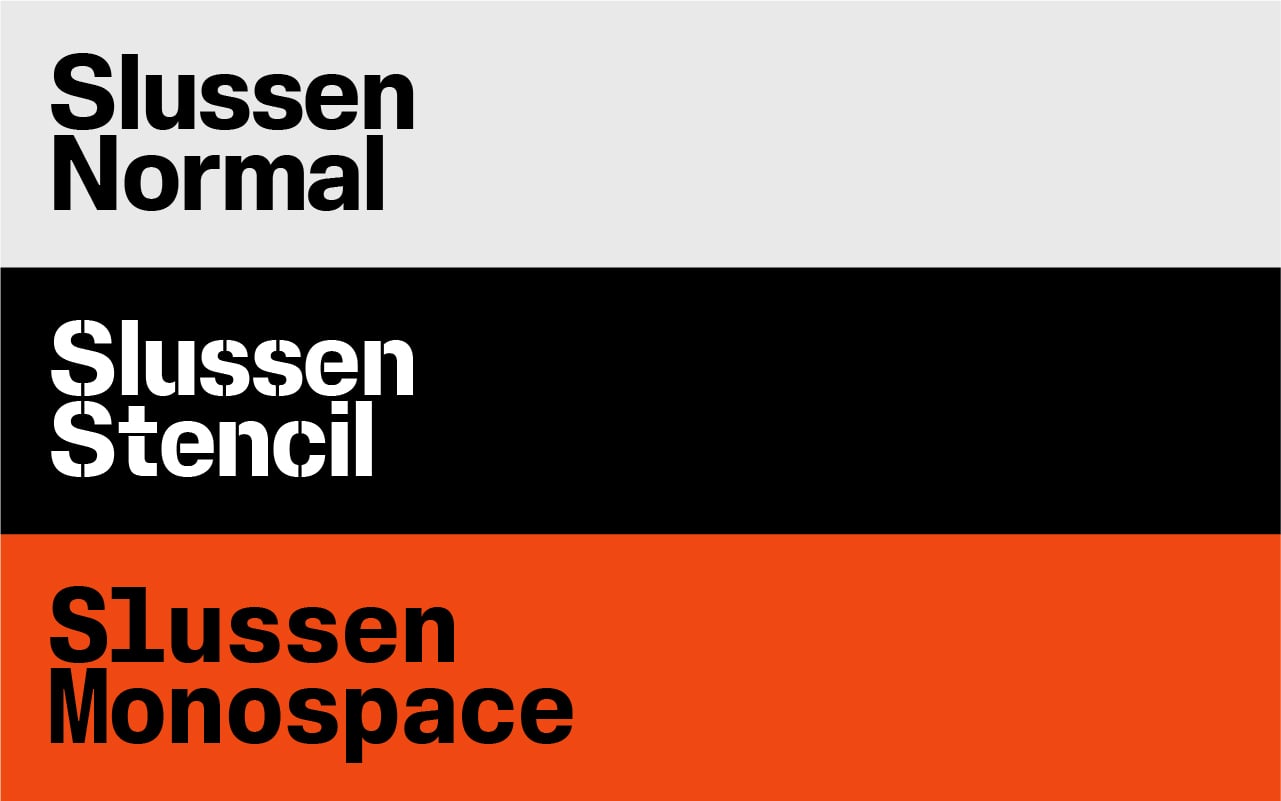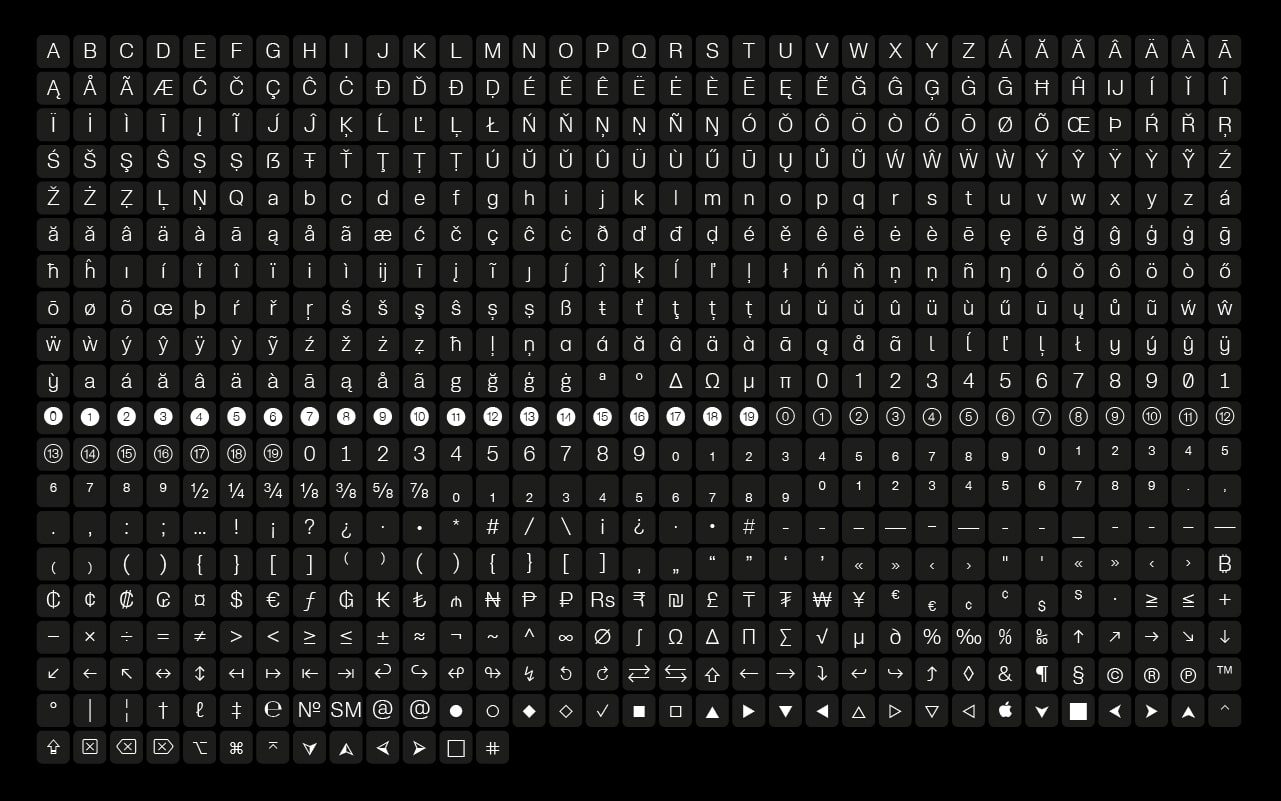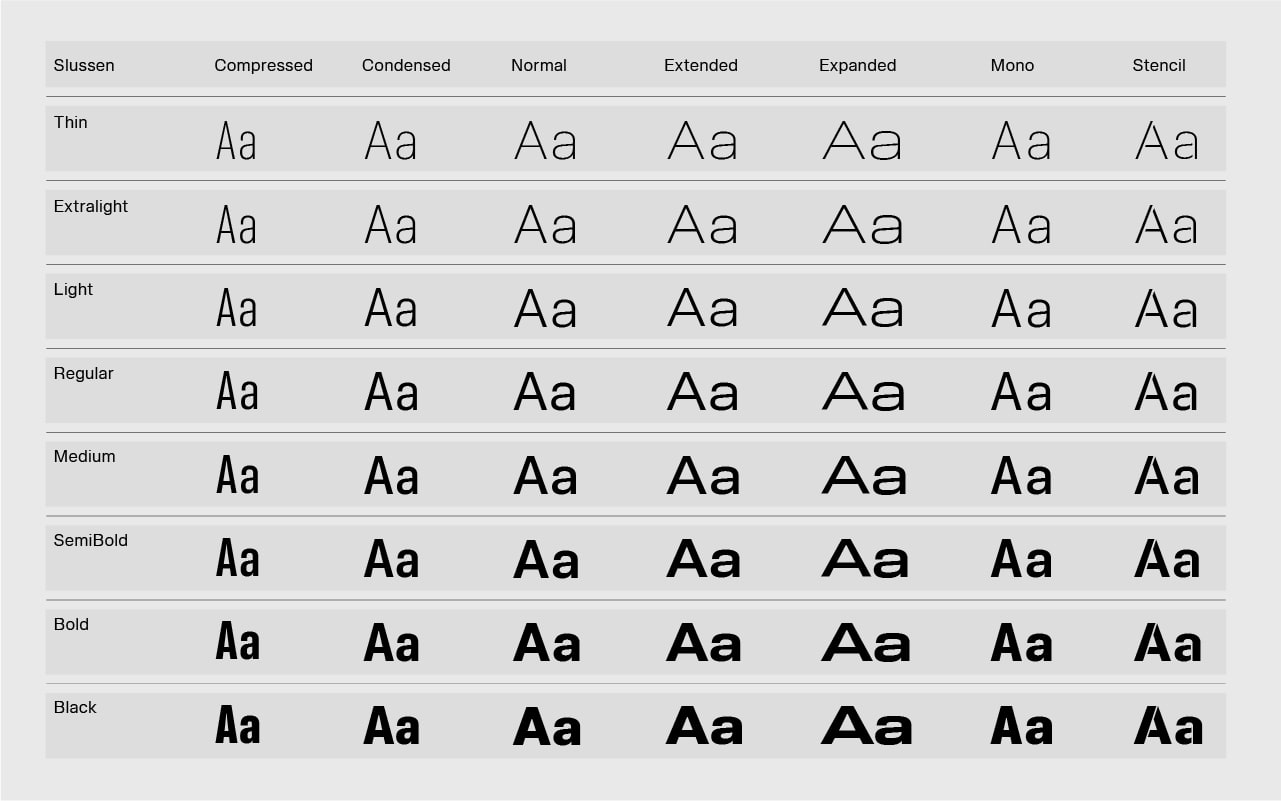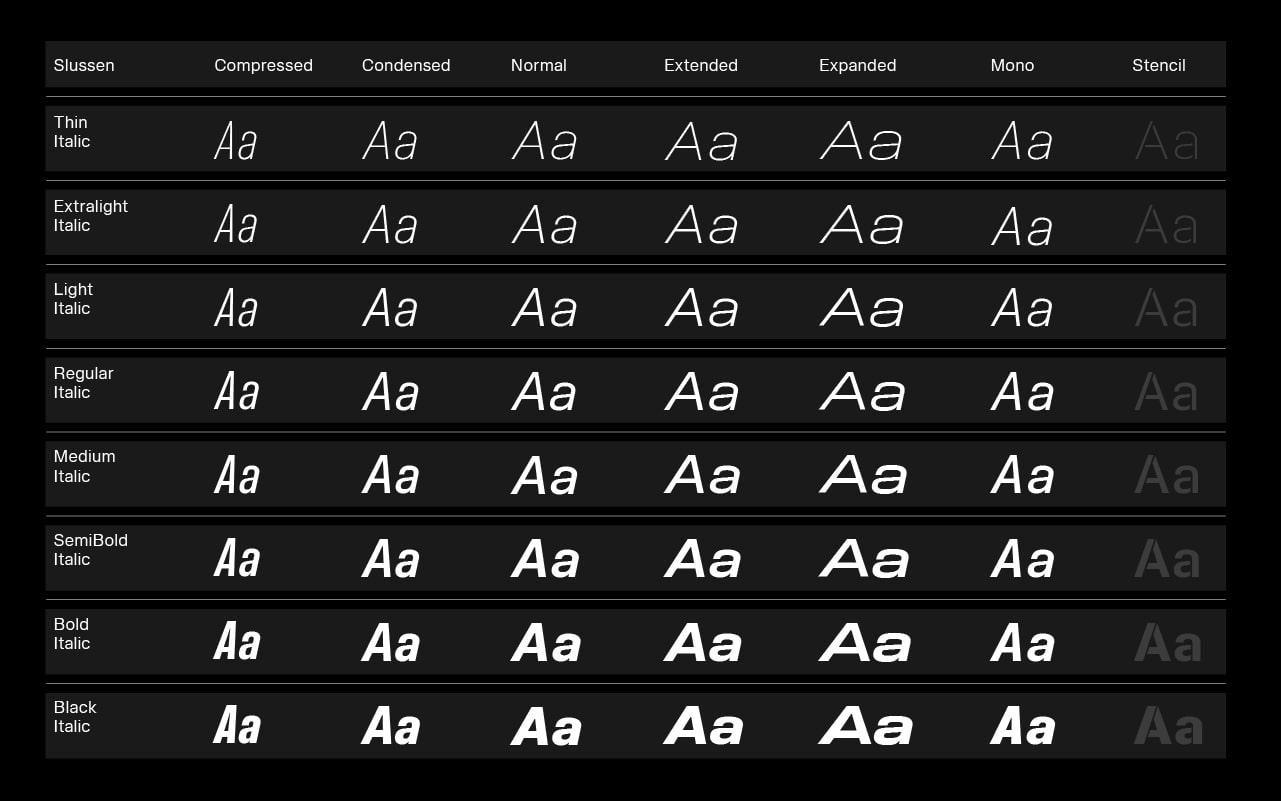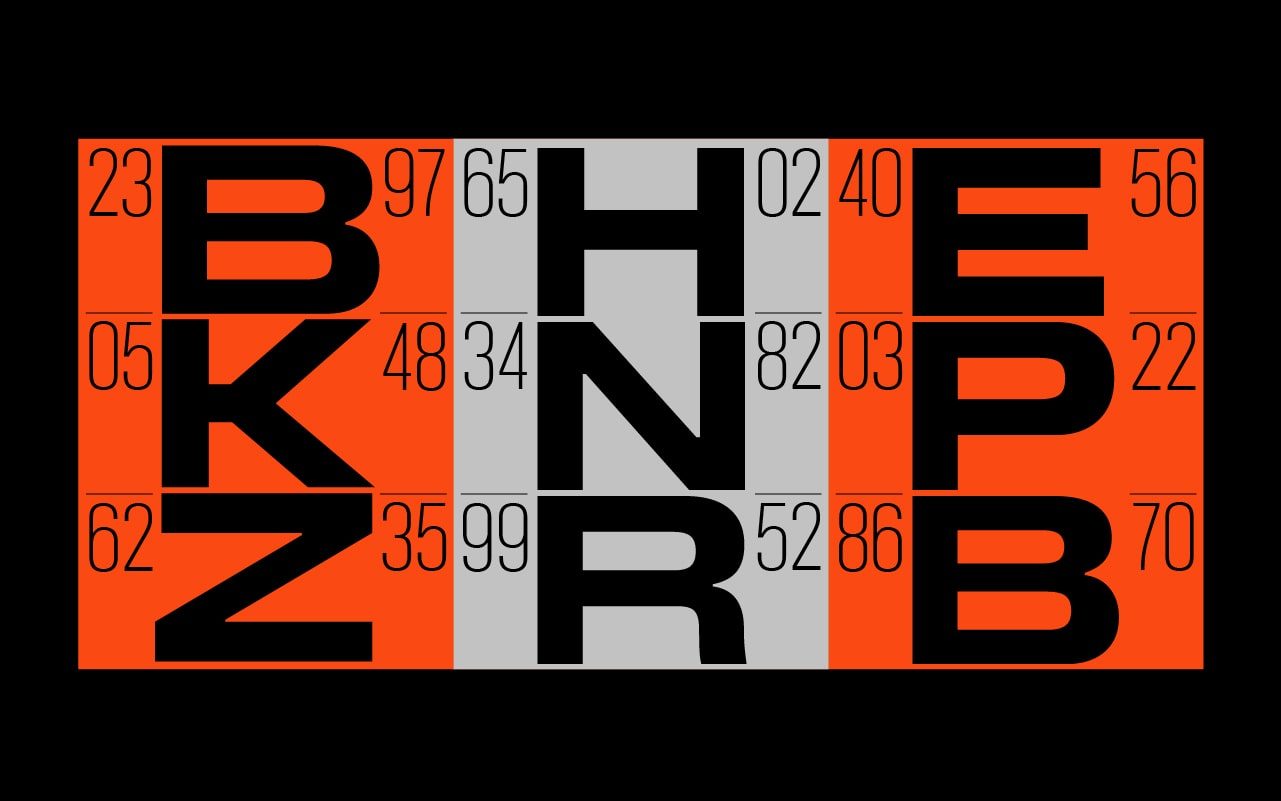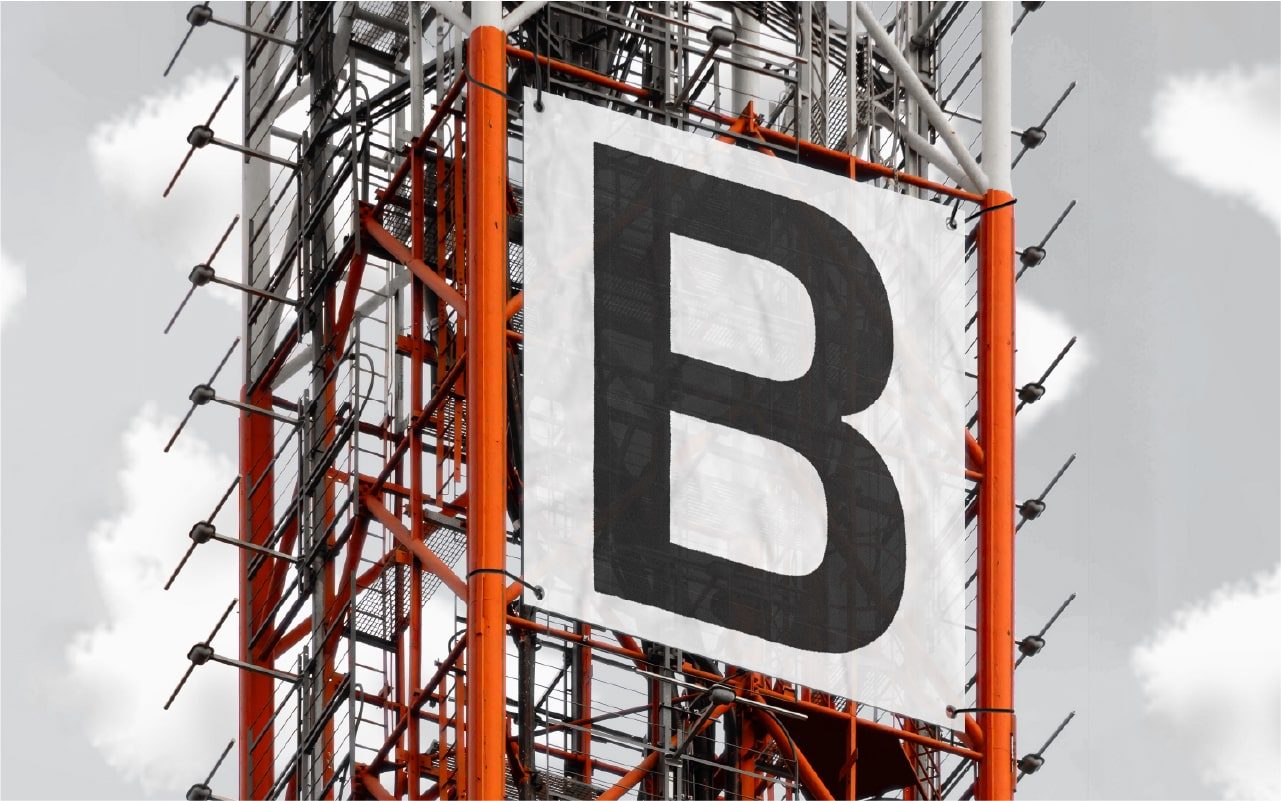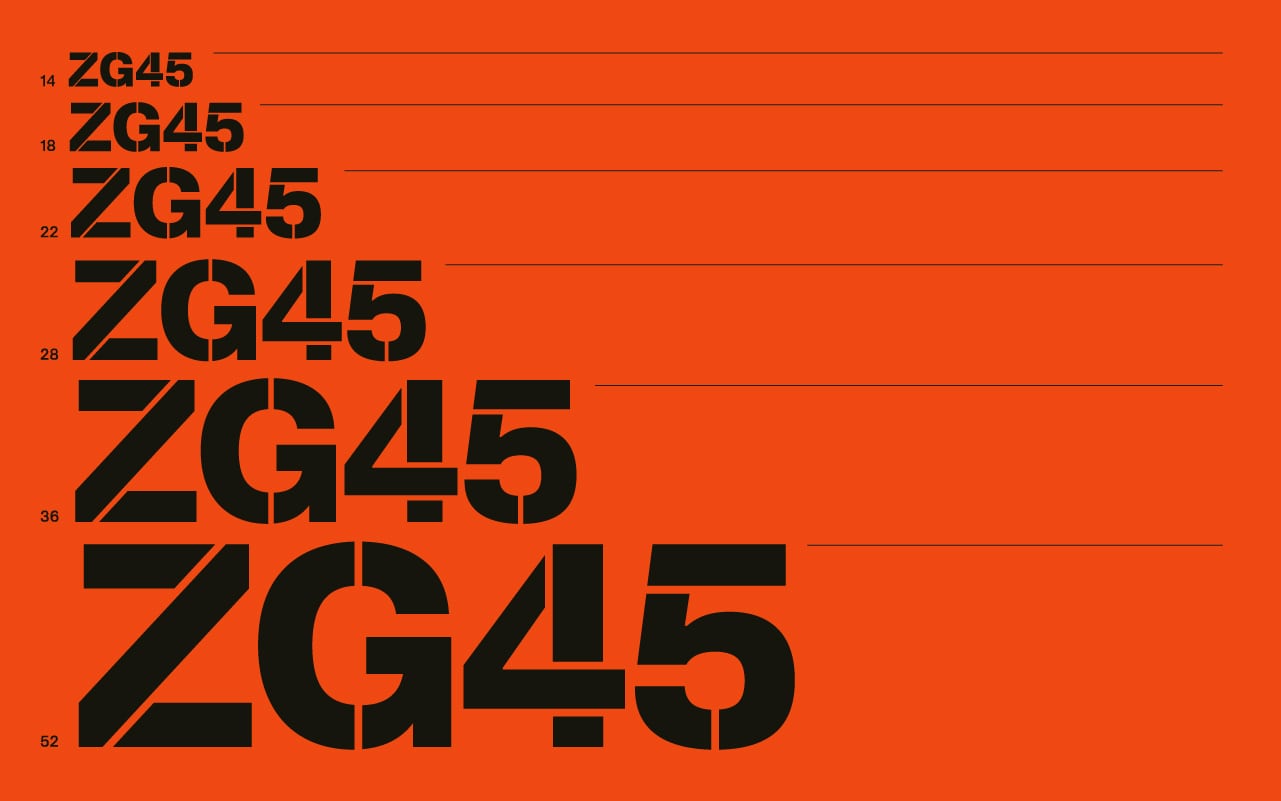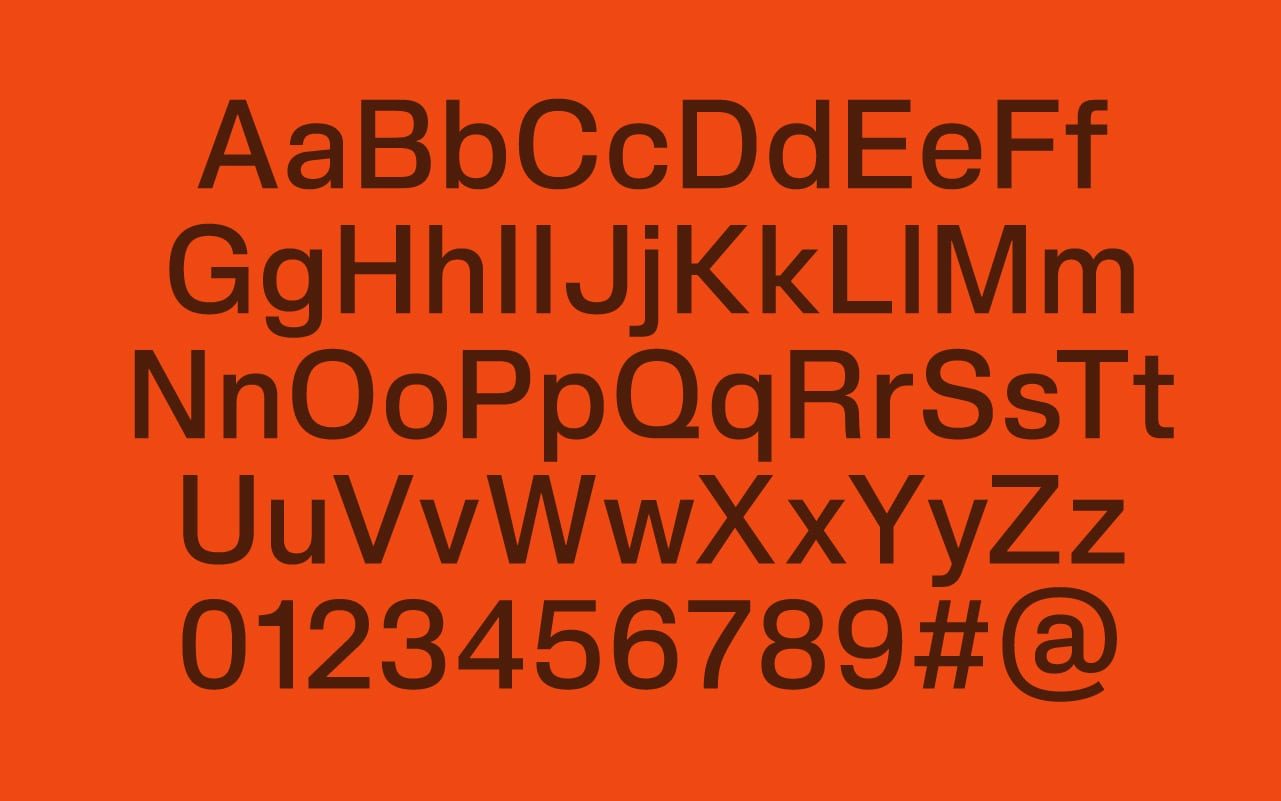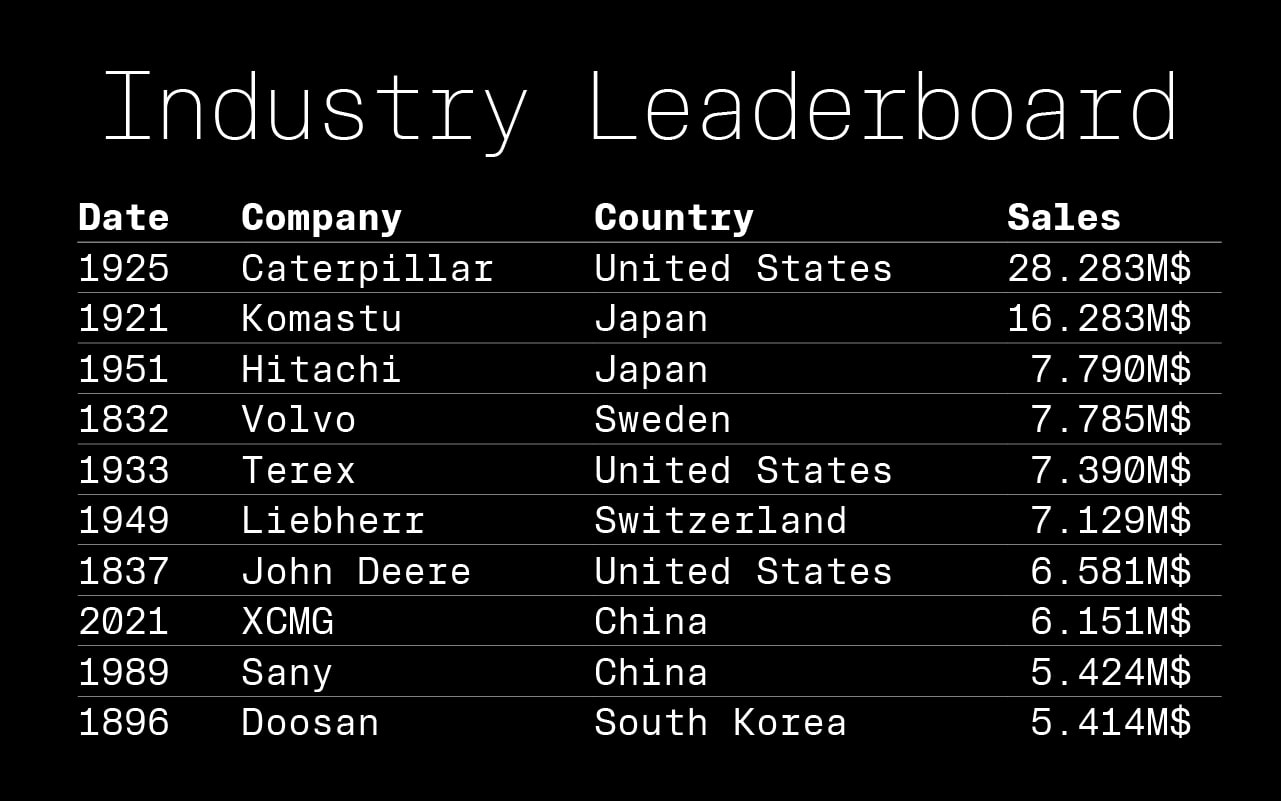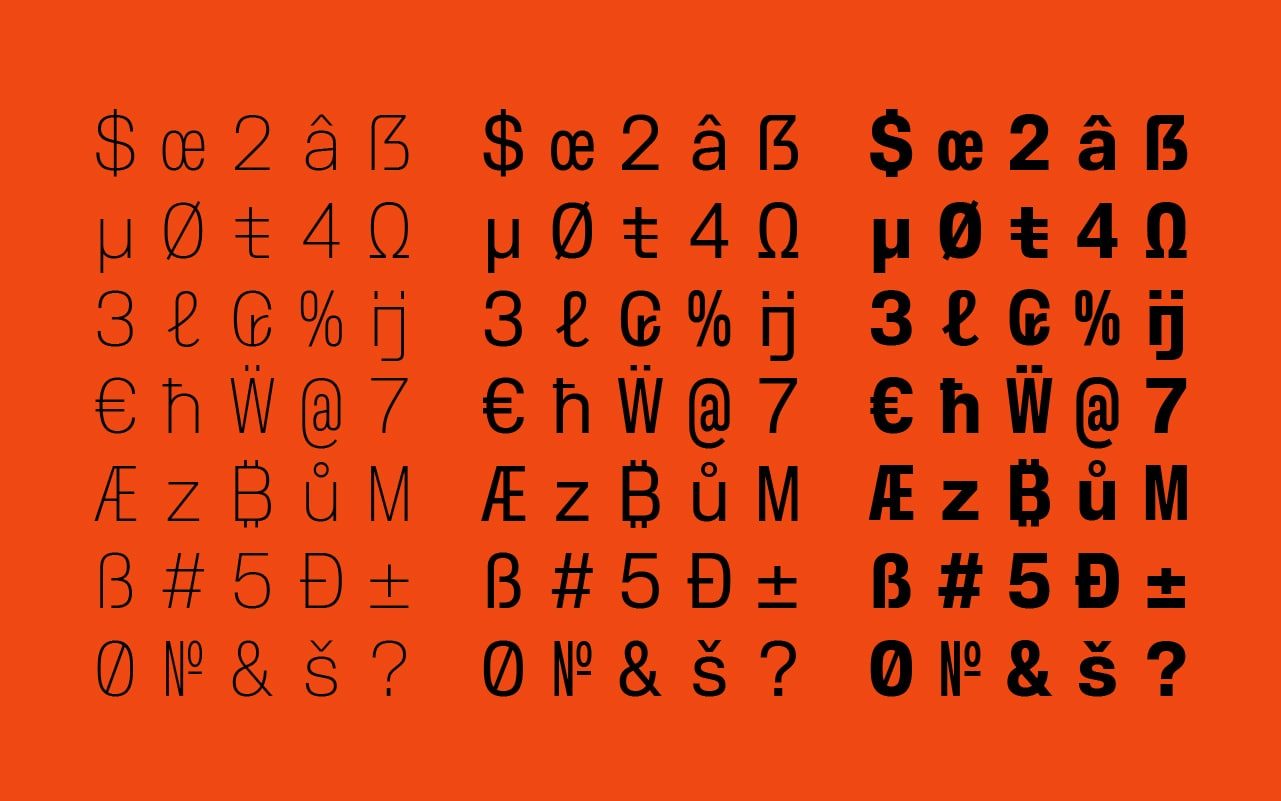
Slussen Stencil
Slussen Stencil is the other variation of Slussen. Created in reference to construction sites, it is ideal for designing signage tools. Stencil is defined by its bold, geometric and simplified cutout letterforms.
Slussen is a Neo-Grotesque typeface well suited to tech and industrial companies. Slussen's inspiration comes from rhythm and organisation of construction sites. When compared to more conventional Neo-Grotesque typefaces, Slussen's design structure is based on a linear evolution throughout angular outlines. Combined with flat endings and a slight contrast in letterforms, this font family has been designed to cover a very large range of uses, from small captions to huge titles. From Compressed to Expanded, the complete family ranges across 6 widths and 8 weights + matching italics for a total of 104 styles in order to fit all types and sizes of supports, both print and on screen. On top of this Stencil variant, the font family also includes a Monospace version which combined with the standard version, allows Slussen to be a strong font system.